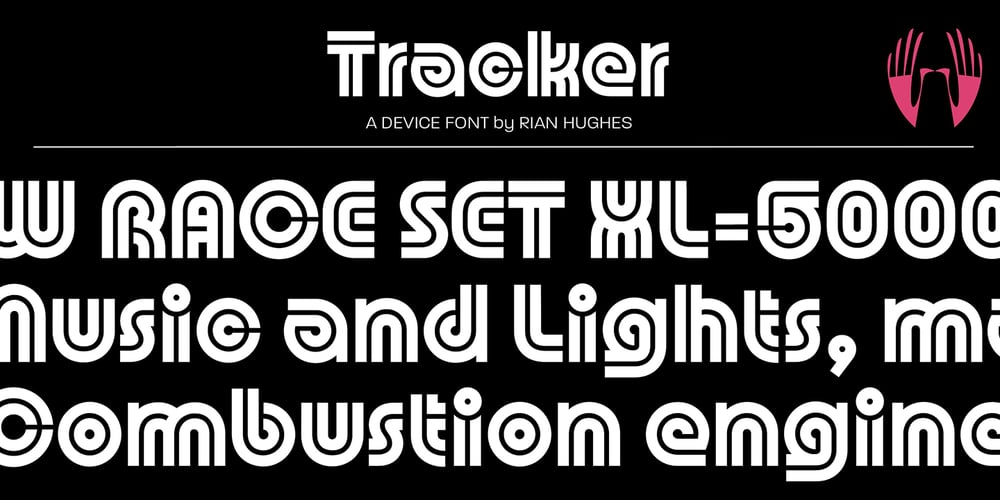
Tracker Font Family was designed by Rian Hughes and published by Device. Tracker contains 1 styles and family package options. Tracker is a geometric twin-line font reminiscent of space-age disco designs of the 60s and 70s, but entirely reexamined, rationalised, redesigned and updated for contemporary use. Best seen in shorter, punchier settings and at larger sizes. The font includes connecting ligatures that can be toggled an and off in the Opentype palette to further customise your text.